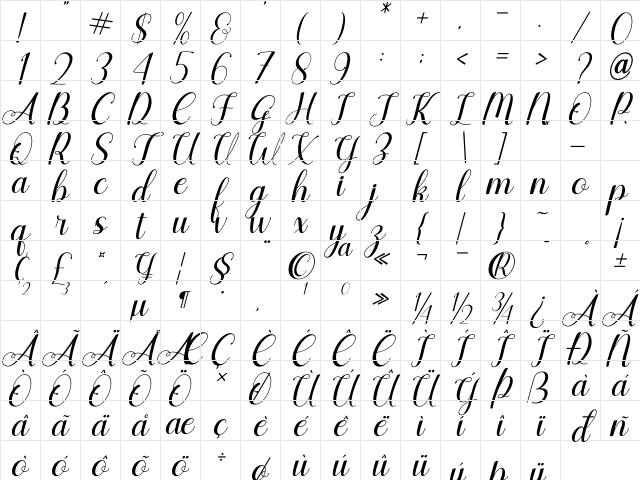
Agilia Italic
Foundry: Heru Utama Putra
Designer: Heru Utama Putra
Design Context for Agilia
Agilia is a composed and adaptable typeface that performs quietly and consistently across a wide range of design contexts. The slanted form adds forward momentum and visual energy.
Pro Tip: Use Agilia for emphasis, pull quotes, and subheadings where its slanted energy can add rhythm to the layout.